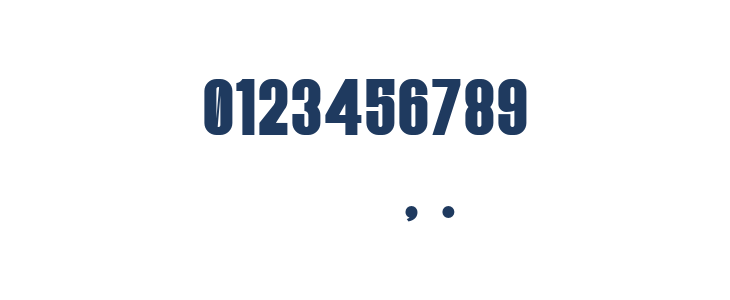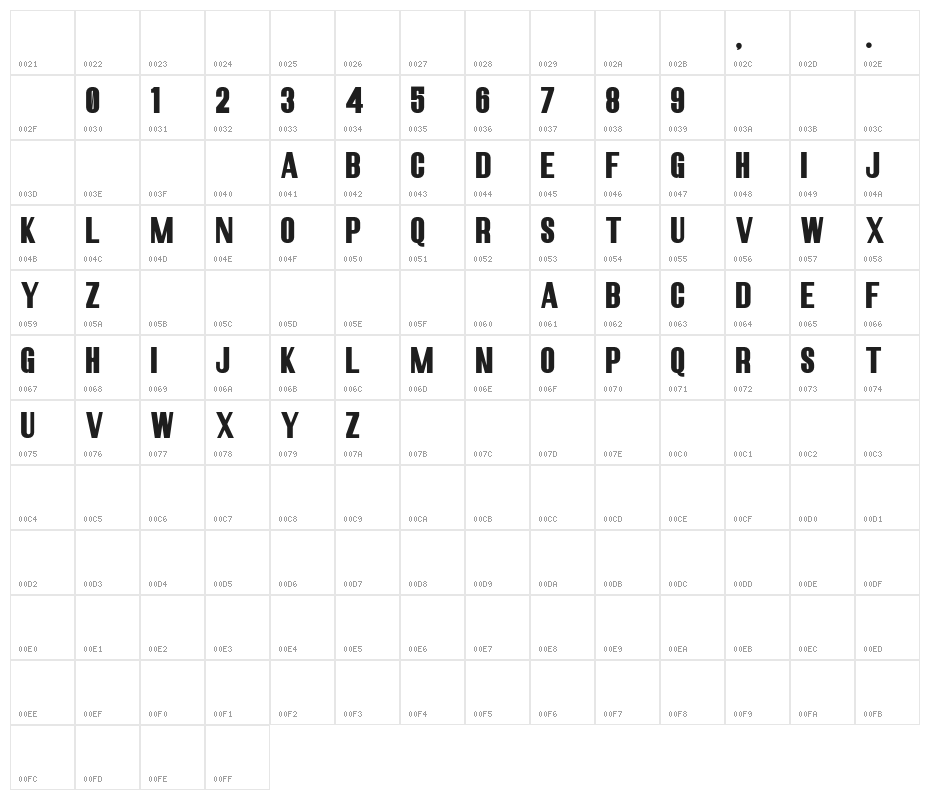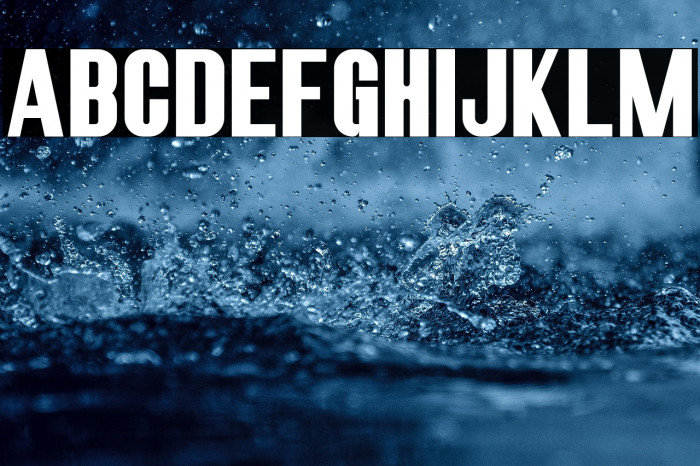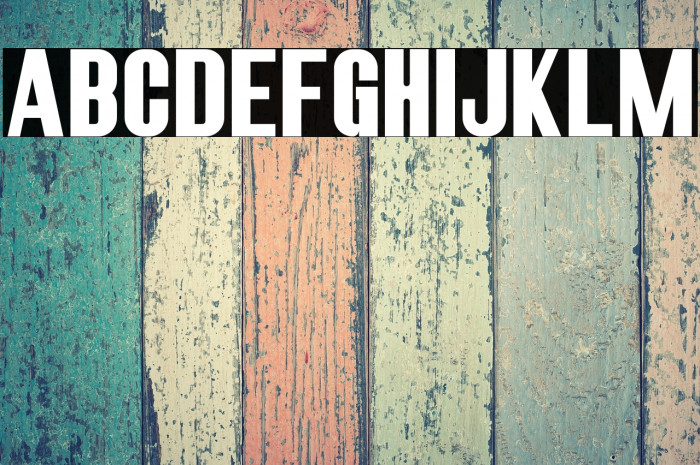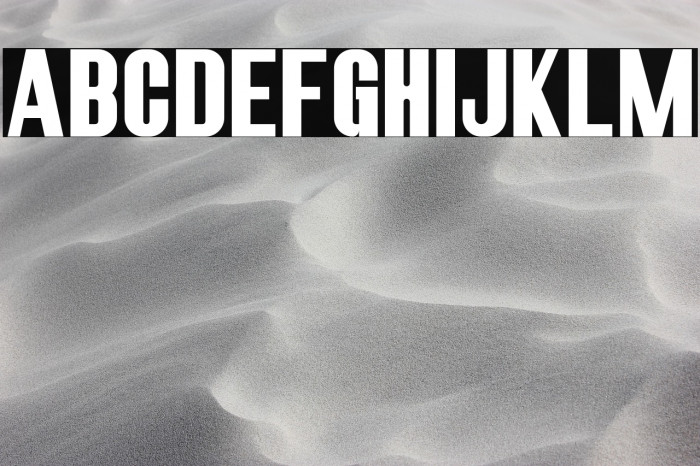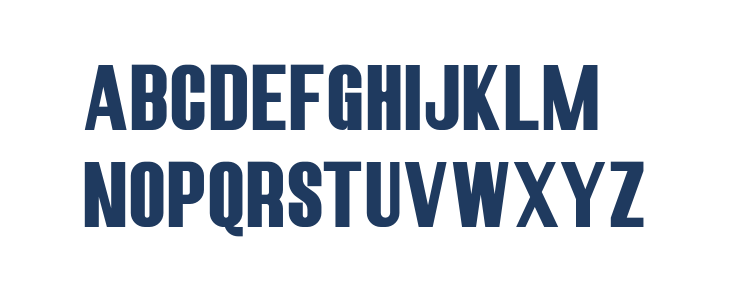
RobustaIISans-Regular Font
| Proiecte propuse | This font is perfect for branding projects, posters, and any design that requires a strong visual impact. It can be effectively used in advertising, packaging, and digital media where boldness is key. |